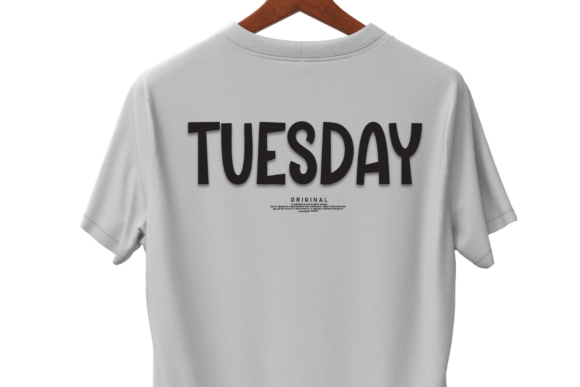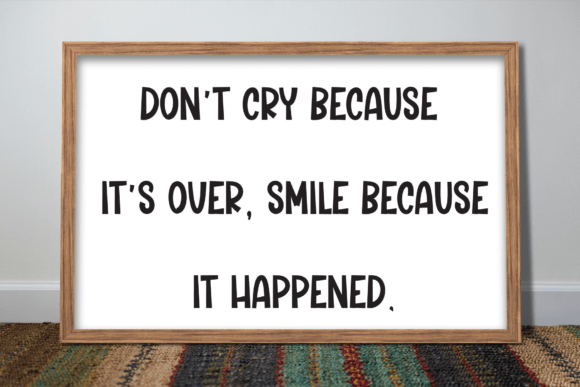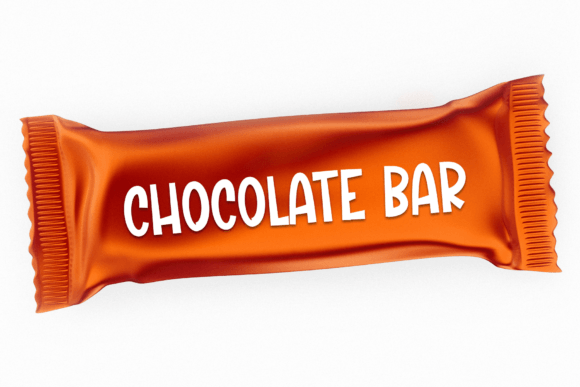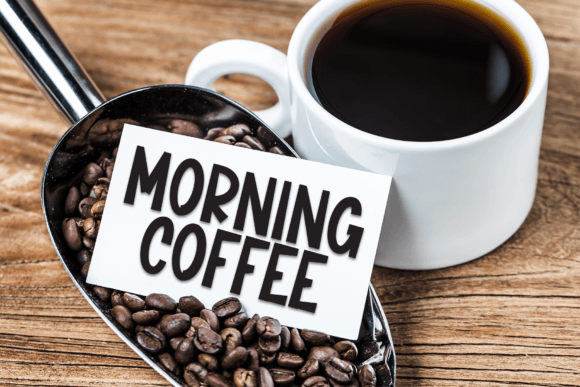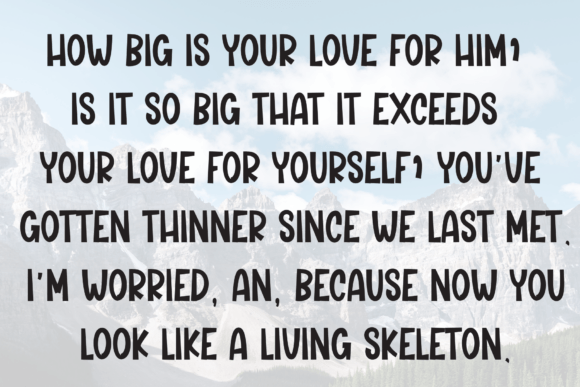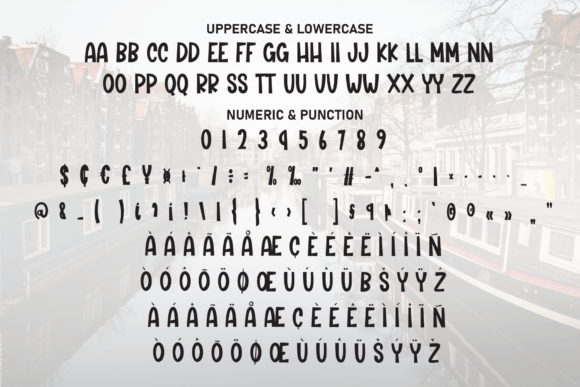
Introducing Amsterdam Font: Add a Dash of Charm to Your Designs
Are you looking for a font that can add a touch of whimsy and playfulness to your designs? Look no further than Amsterdam Font, a delightful handwritten display font that’s perfect for creating eye-catching wedding invitations, cheerful cards, and more. With its sweet allure and fun aesthetic, this font is sure to invigorate your audience’s experience and leave a lasting impression.
The Charm of Amsterdam Font
Amsterdam Font is a carefully crafted font that exudes a delightful spirit, making it perfect for designers and crafters who want to add a personal touch to their work. Its playful vibe is infectious, and it’s sure to bring a smile to your audience’s faces. Whether you’re designing wedding invitations, birthday cards, or social media graphics, Amsterdam Font is the perfect choice.
Key Features of Amsterdam Font
• Handwritten display font: Amsterdam Font is a beautifully crafted handwritten font that’s perfect for creating eye-catching headlines and titles.
• Playful vibe: This font radiates a playful energy that’s sure to engage your audience and add a touch of whimsy to your designs.
• Sweet allure: Amsterdam Font has a sweet and charming aesthetic that’s perfect for creating tender wedding invitations, cheerful cards, and more.
• Fun aesthetic: This font is designed to add a fun and lively touch to your designs, making it perfect for crafters and designers who want to create unique and eye-catching work.
Uses for Amsterdam Font
Amsterdam Font is a versatile font that can be used for a wide range of design projects, including:
• Wedding invitations: Add a touch of romance and whimsy to your wedding invitations with Amsterdam Font.
• Cheerful cards: Create eye-catching birthday cards, get-well cards, and more with this playful font.
• Social media graphics: Use Amsterdam Font to create engaging social media graphics that will stand out from the crowd.
• Party decorations: Add a playful touch to your party decorations with Amsterdam Font, perfect for baby showers, bridal showers, and more.
Tips for Using Amsterdam Font
Here are a few tips for getting the most out of Amsterdam Font:
• Use it as a display font: Amsterdam Font is designed to be used as a display font, so use it to create eye-catching headlines and titles.
• Pair it with other fonts: Experiment with pairing Amsterdam Font with other fonts to create a unique and eye-catching look.
• Experiment with colors: Amsterdam Font looks great in a variety of colors, so don’t be afraid to experiment and find the perfect hue for your design.
Amsterdam Font is a delightful handwritten display font that’s perfect for designers and crafters who want to add a touch of charm and whimsy to their work. With its playful vibe, sweet allure, and fun aesthetic, this font is sure to invigorate your audience’s experience and leave a lasting impression. So why wait? Download Amsterdam Font today and start adding a dash of charm to your designs!